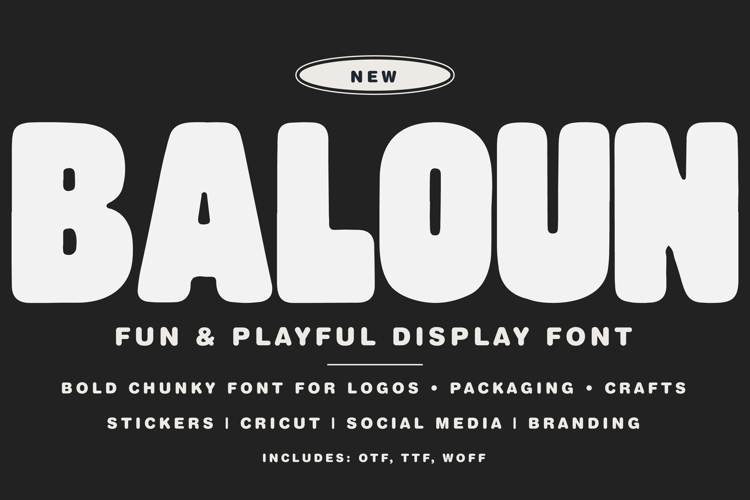
BALOUN Font
๐จ Font Name: BALOUN by Minimalist Art Studio
๐จ Font Description: Voltage is a tall, condensed sans serif font in Regular and Italic stylesโperfect for bold headlines, modern branding, tech interfaces, and minimalist layouts; free for subscribers and built to energize your design flow.